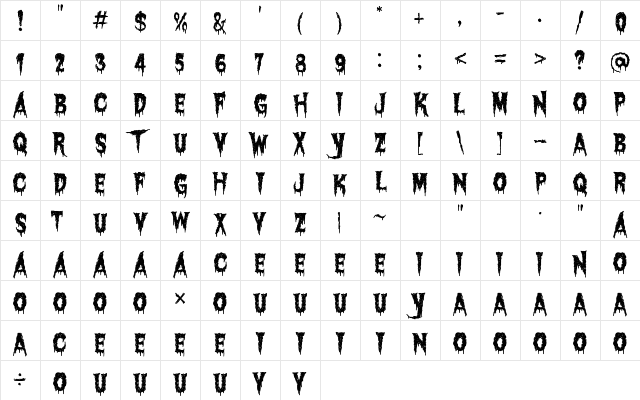
Creaking Crypt Regular Free Font
Creaking Crypt Regular
Foundry: SinisterFonts.com
Designer: Chad Savage
Design Context for Creaking Crypt
Creaking Crypt is a composed and adaptable typeface that performs quietly and consistently across a wide range of design contexts.